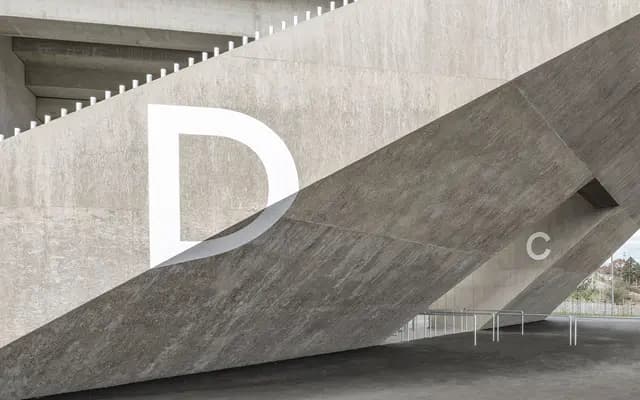
Formale Grotesque specimen from Binnenland
A Swiss grotesque in three weights and four optical grades, balancing technical construction with humanistic details drawn from early rationalist type design.
Three weights, Light, Normal and Bold, each available across four grades with matching italics, giving twelve styles in total plus an OpenType alternate set. Characteristic details include wide open round letters, angled cuts on f, r and t, and conspicuously equal widths on B, P and R. The design sits at the intersection of technical rigour and humanistic warmth, most evident in the contrast between the constructed a and g and the more open b and e.
A Swiss grotesque with humanistic tendencies, sitting in the tradition of early 20th-century rationalist type design. The page explicitly positions it within the grotesque idea and the radical rationalisation movement of the 1890s.